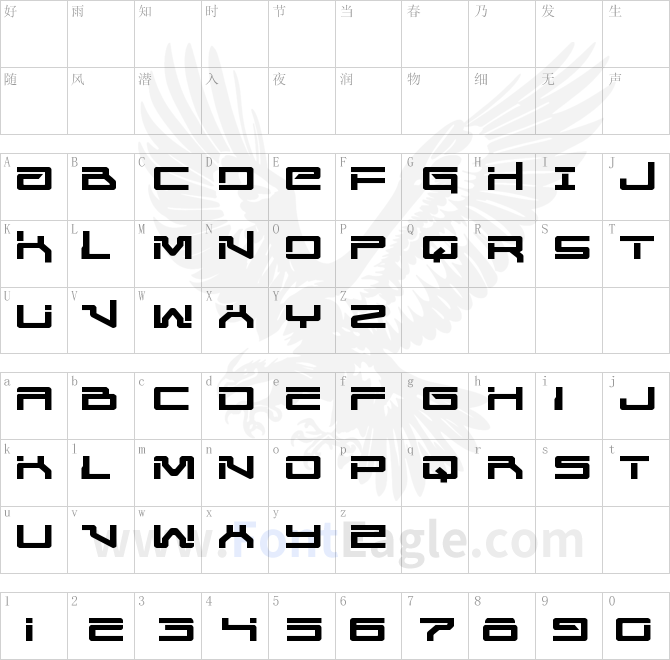
United-Planets-Expanded is a great font, widely used in graphic design, single-page menu design, poster design and other fields, and is deeply loved by designers.United-Planets-Expanded download.